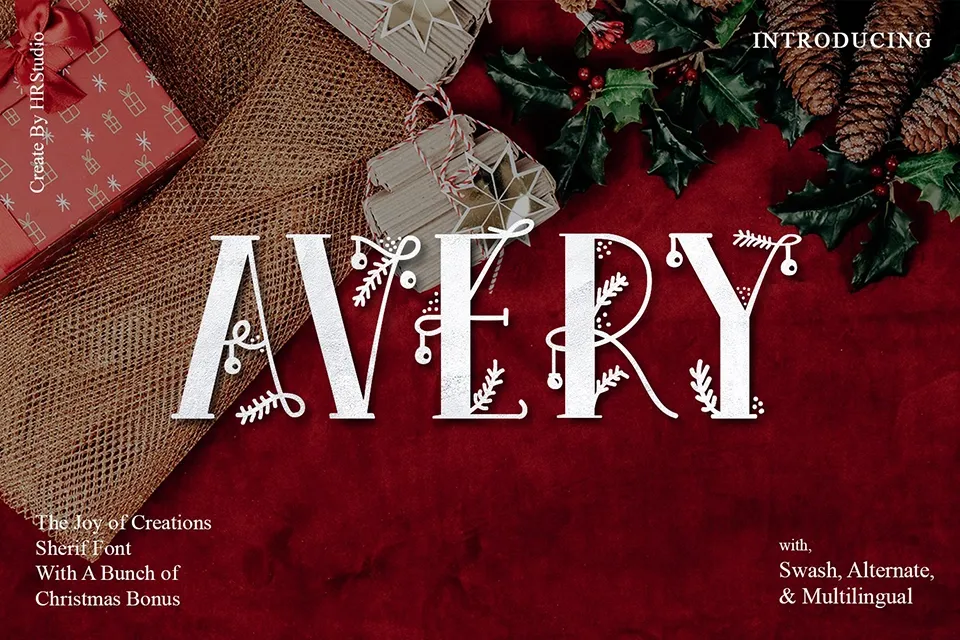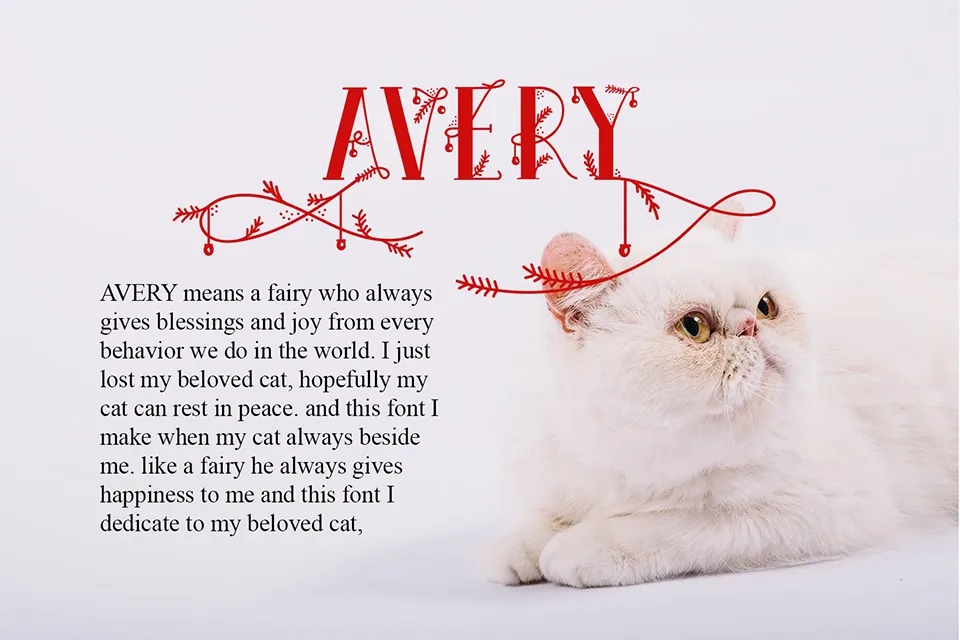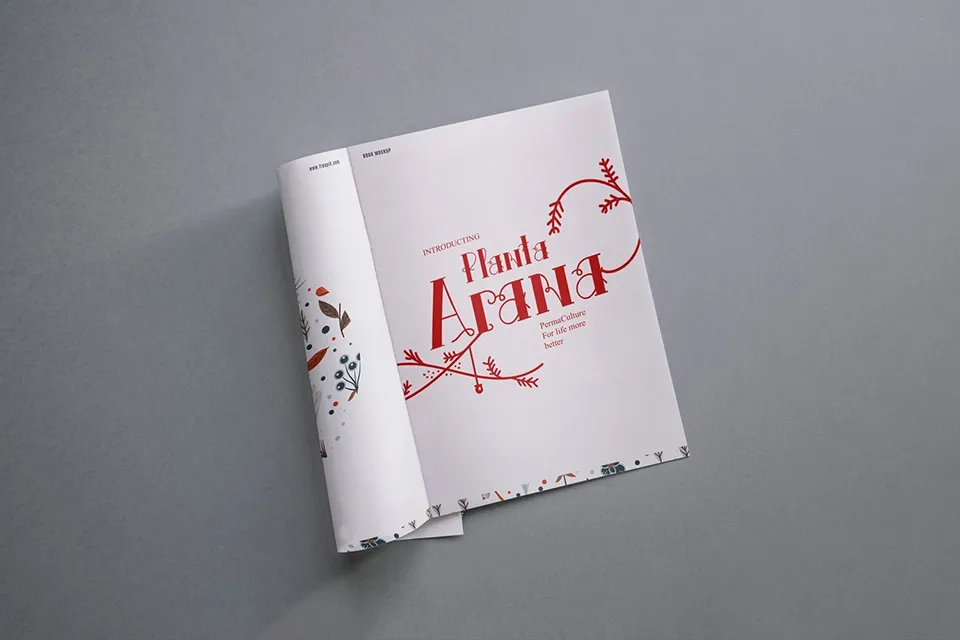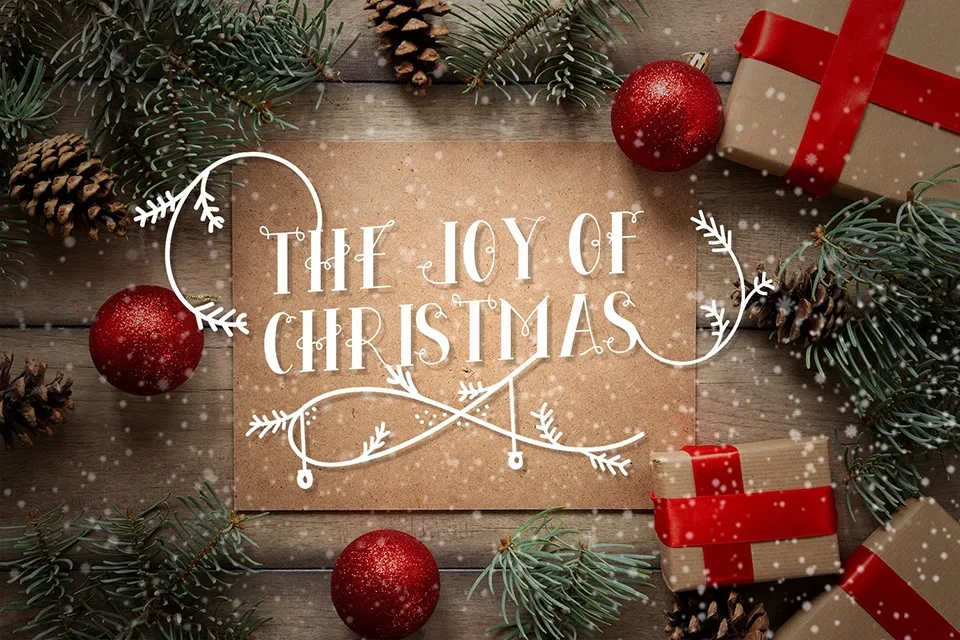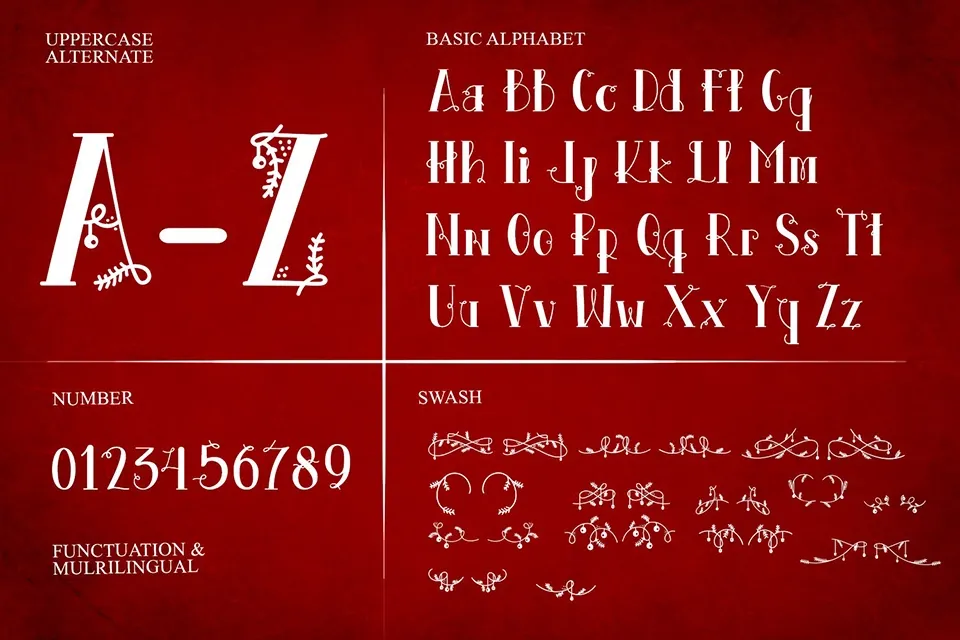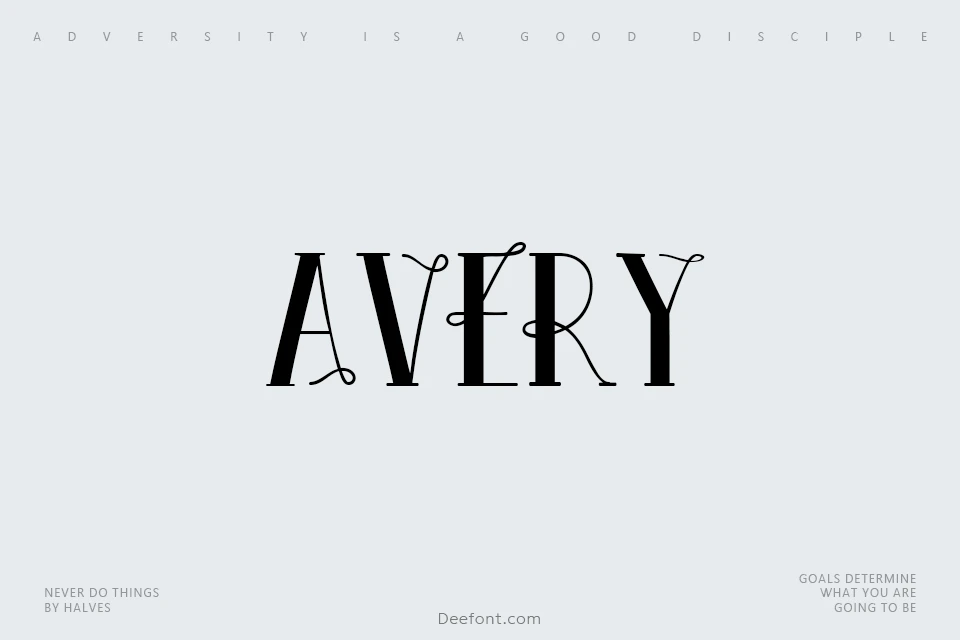
Avery Display Font
Avery Display Font is a bold, decorative, and eye-catching typeface designed to make your headlines and creative projects stand out. Perfect for festive occasions, branding, packaging, and event materials, this display font features unique swash and alternate characters, adding a whimsical and elegant touch to your typography. Its playful details and multilingual support make it ideal for a wide range of design needs, ensuring your creations capture attention and convey a joyful spirit.
Designed by:HydricDesignWebsite